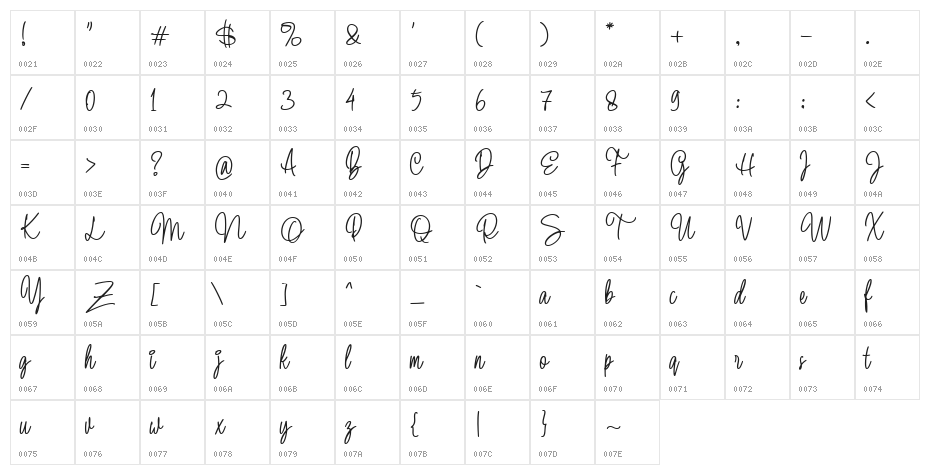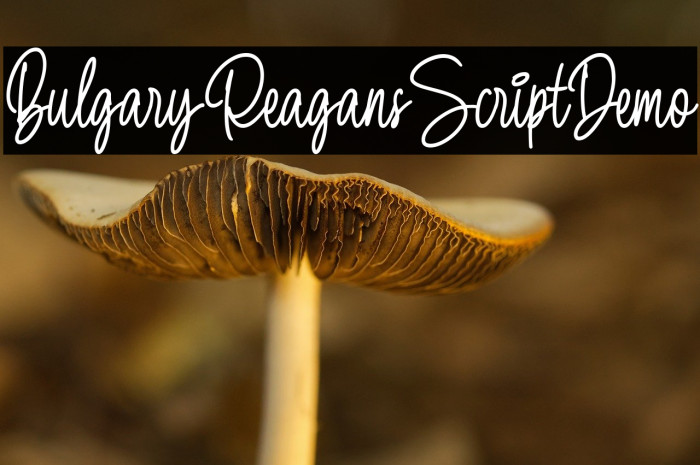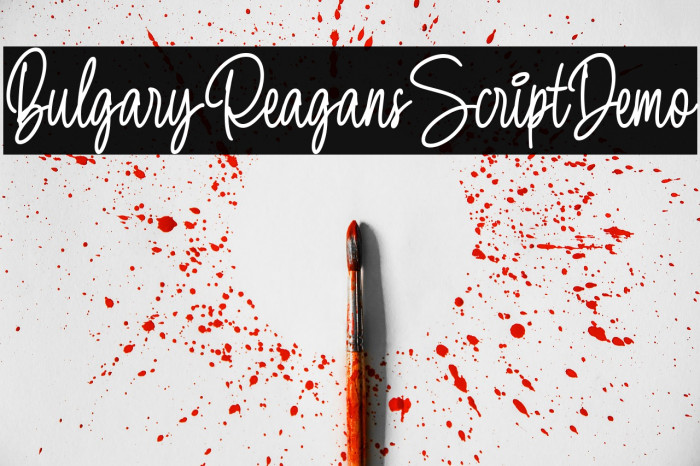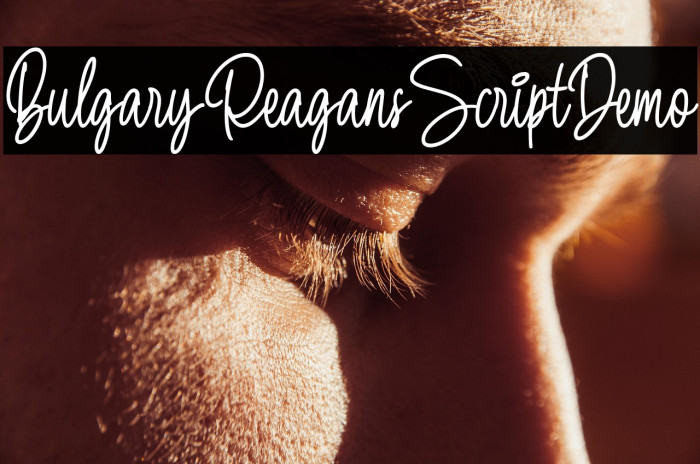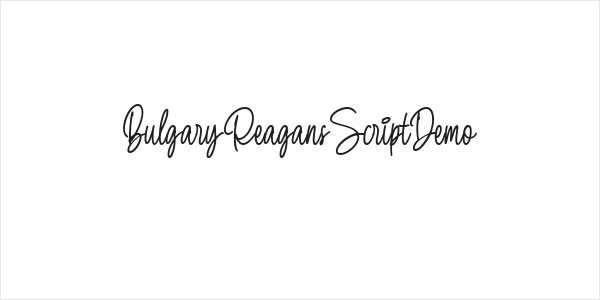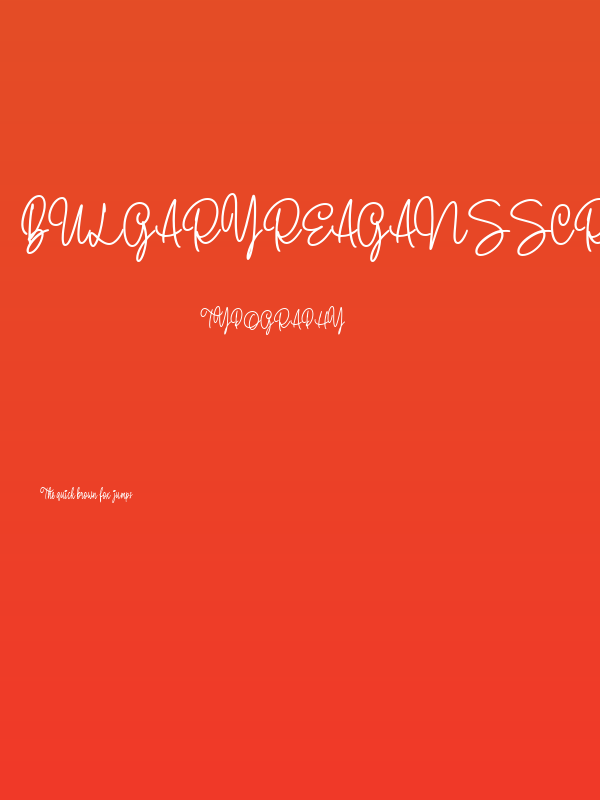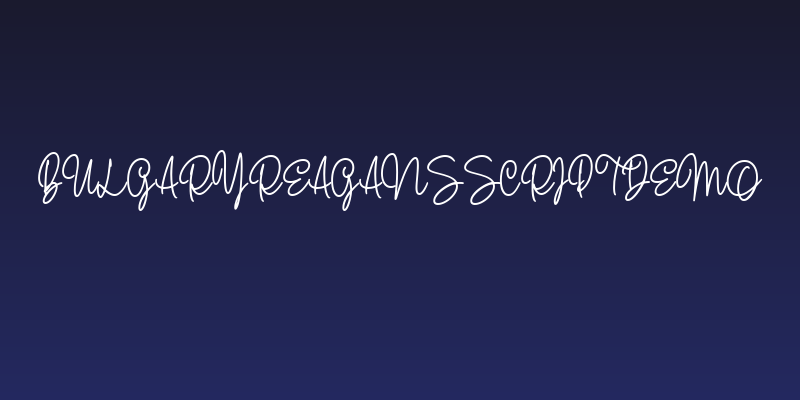
BulgaryReagansScriptDemo Font
BulgaryReagansScriptDemo Description
A flowing, elegant script font with a handwritten style, featuring connected letters and smooth curves.
| Use Case | Logos, Headlines |
| Proposed Projects | Invitations, greeting cards, branding. |